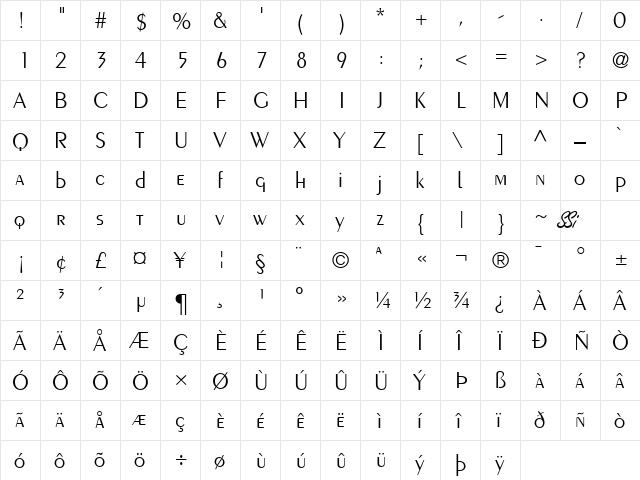
Creme SSi Light Font Preview
Creme SSi Light
Design Context for Creme SSi Typeface
Creme SSi takes a measured approach to typography — its balanced proportions and neutral character make it a reliable workhorse for both digital and print work. The delicate stroke weight brings airiness and refinement to layouts.